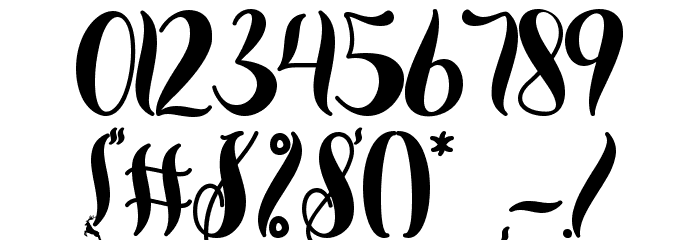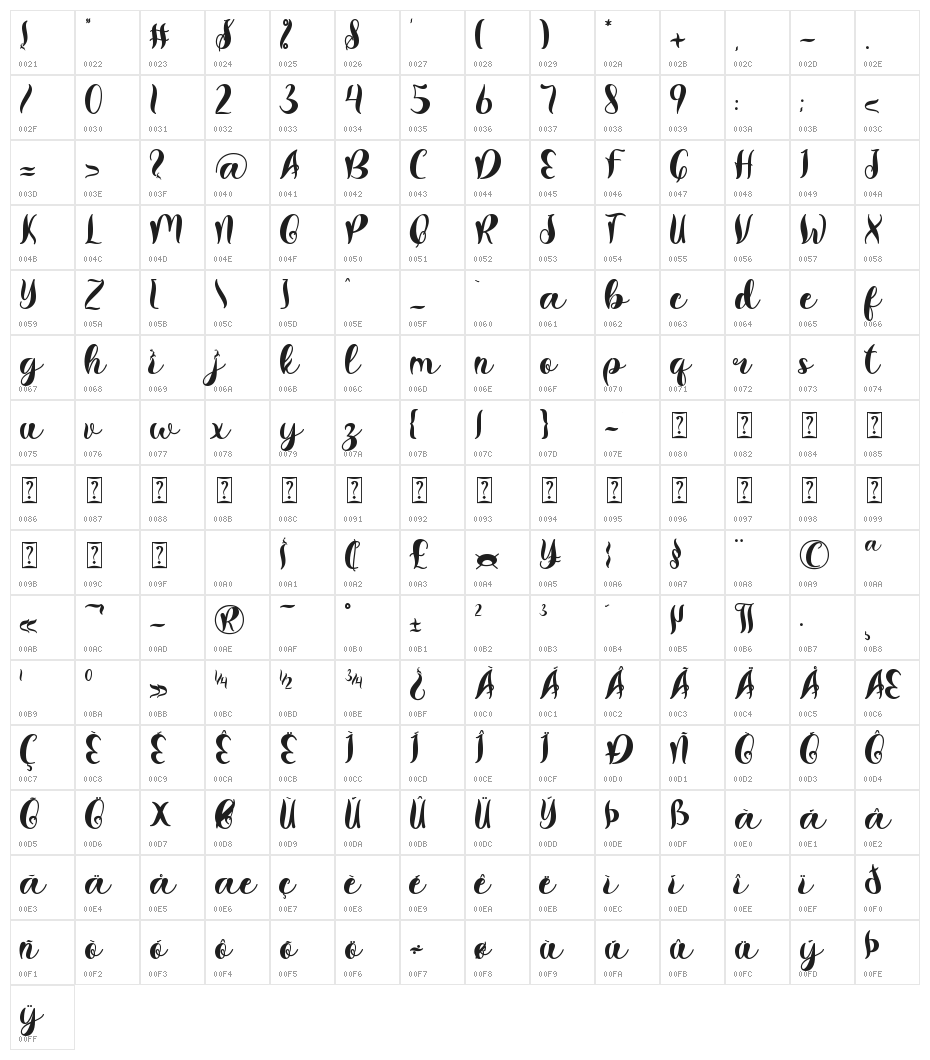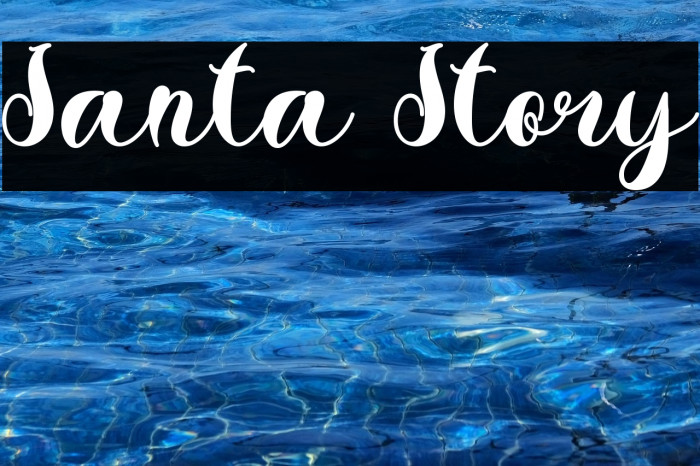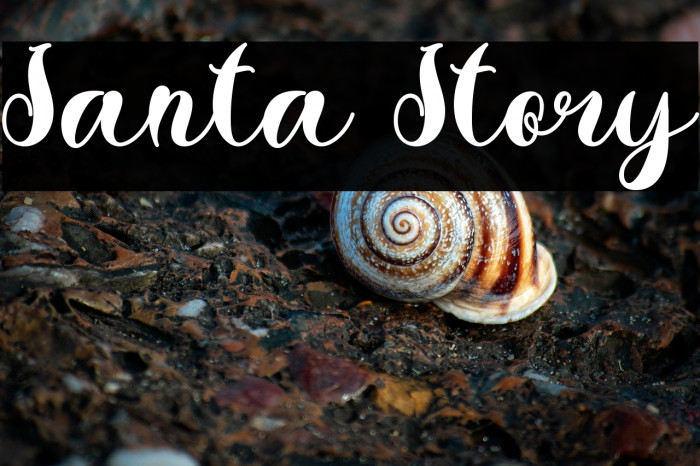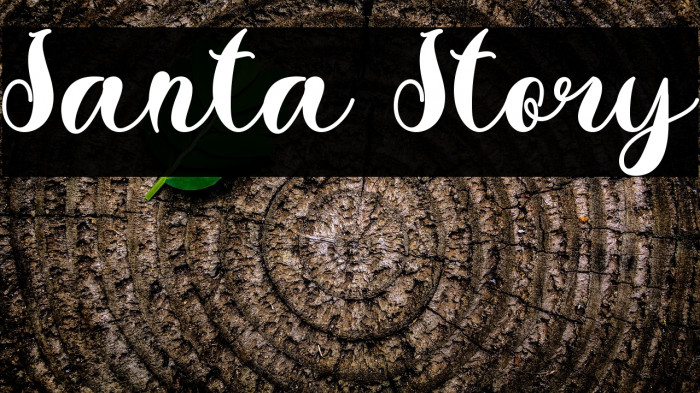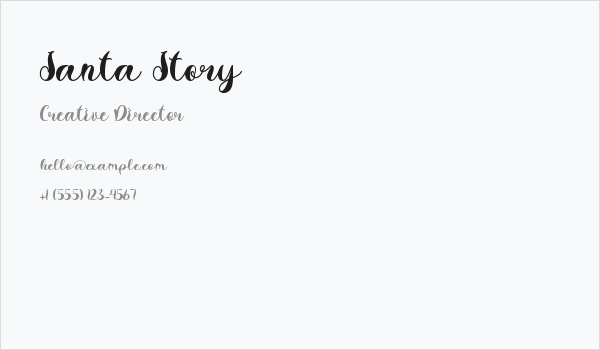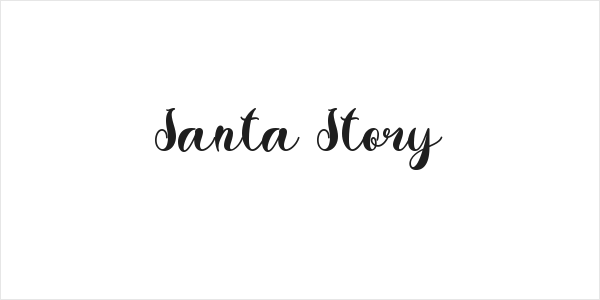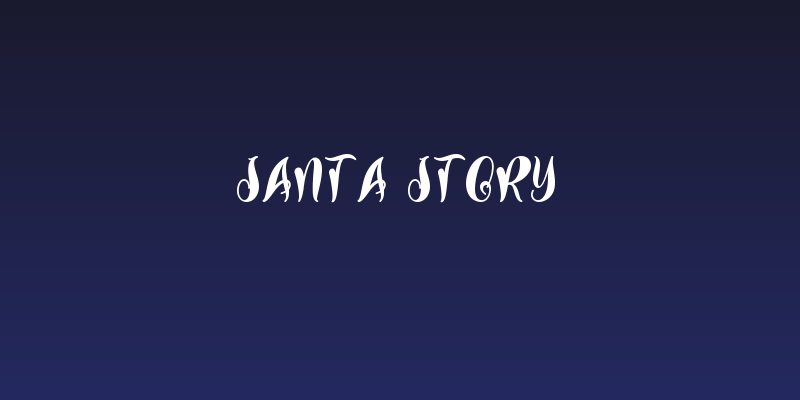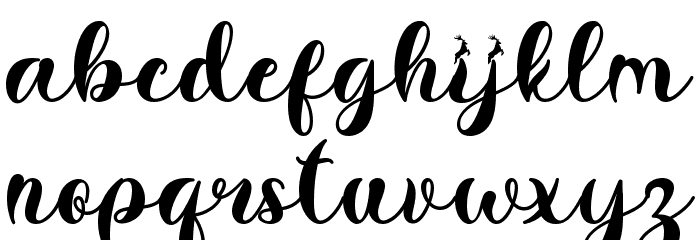
Santa Story Font
Santa Story Description
This font features a whimsical and playful script style with a touch of elegance. The letters are characterized by their flowing, cursive forms and decorative swashes, giving it a festive and joyful appearance. The uppercase letters are bold and dynamic, while the lowercase letters maintain a consistent fluidity, enhancing readability. The numerals and special characters follow the same lively style, making them suitable for creative and decorative purposes. The overall design exudes a sense of celebration and warmth, perfect for holiday-themed projects.
| Proposed Projects | Ideal for holiday cards, festive invitations, branding for seasonal products, and decorative signage. |